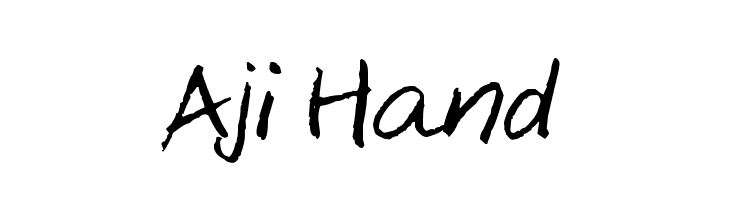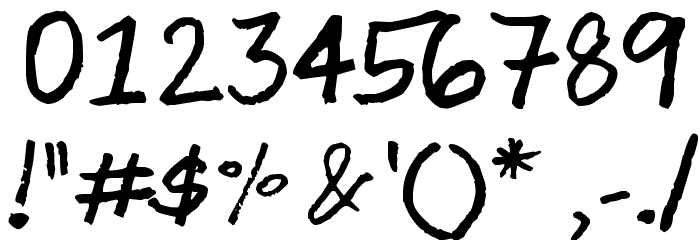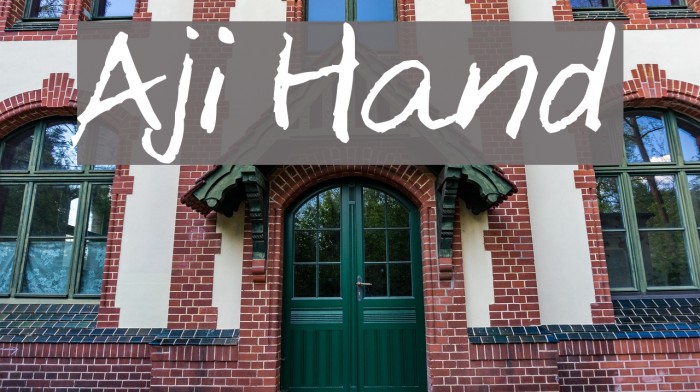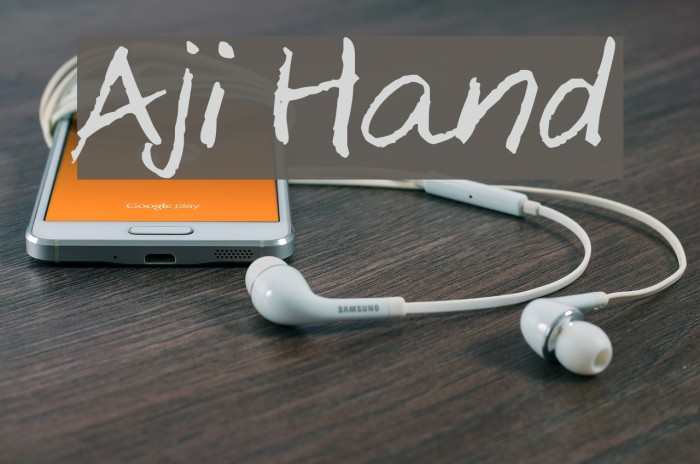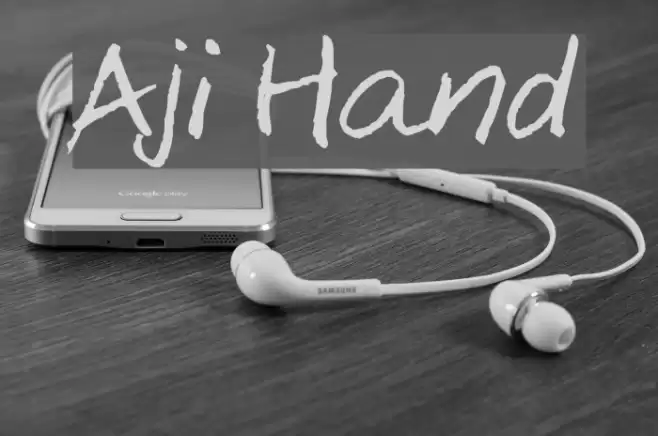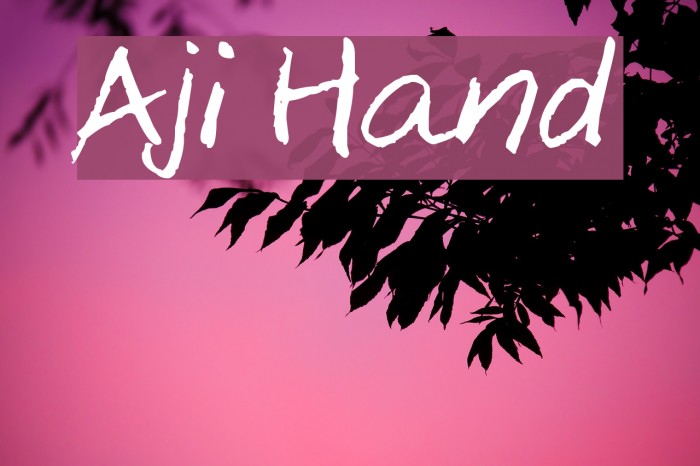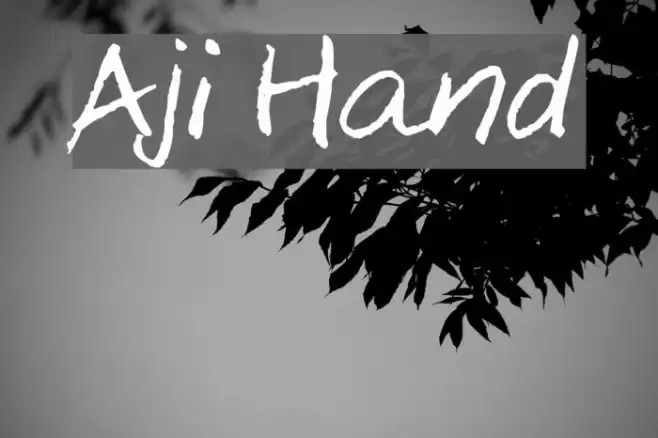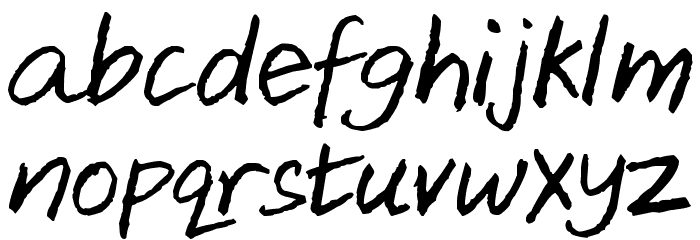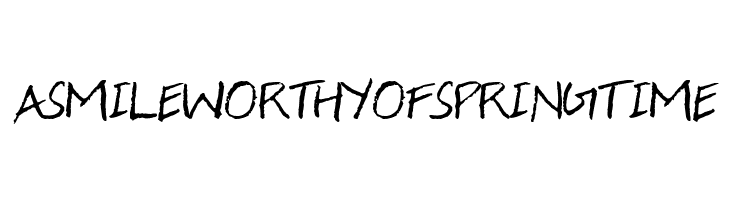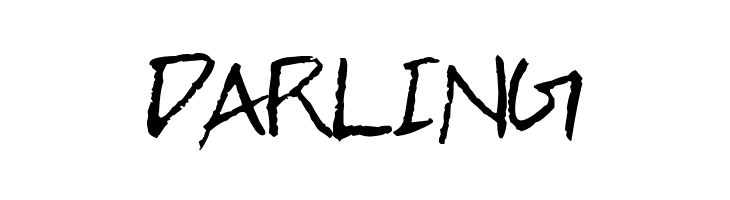
Aji Hand Font
Aji Hand Description
This font exudes a dynamic and expressive handwritten style, characterized by its bold and slightly irregular strokes that mimic the natural flow of handwriting. The uppercase and lowercase letters maintain a consistent slant, adding to the casual and informal appearance. The numerals and special characters follow the same stylistic cues, ensuring a cohesive look across all elements. The font's organic and lively nature makes it ideal for projects that require a personal touch or a creative flair. Its legibility is maintained despite the playful design, making it versatile for various applications.
A bold, expressive handwritten font with a dynamic and casual style from Handwritten fonts.
• Proposed Projects: Ideal for greeting cards, invitations, personal branding, and creative projects that require a handwritten touch.
• Bold: Yes
• Italic: No
• Weight: Bold
• Width: Normal
• Character Spacing: Normal
• Contrast: Medium
• Overall Style: Decorative
• Use Case: Logos, Headlines, Creative projects